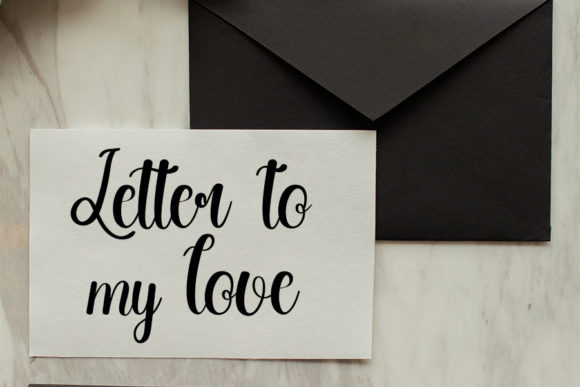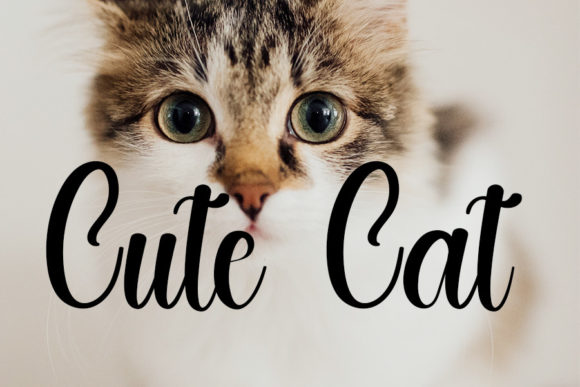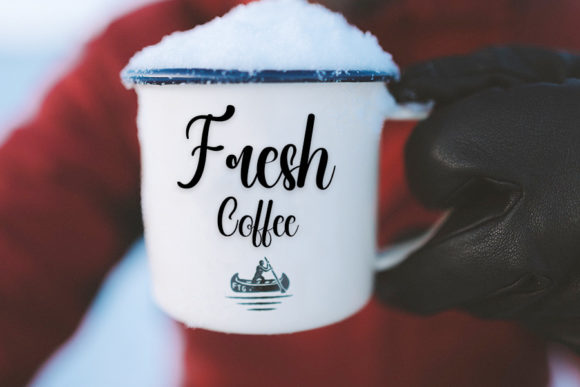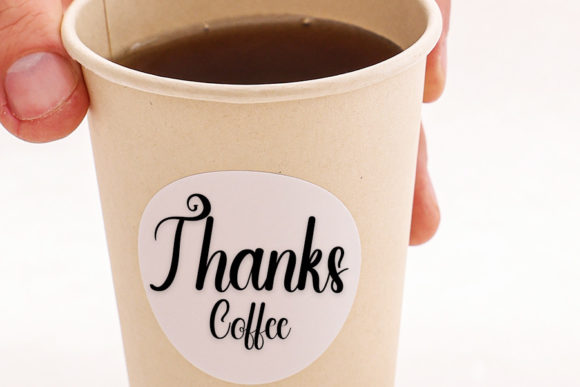
About Soulmate Font
Soulmate is a sweet and delicate handwritten font that radiates a dainty and joyful charm. With its gentle strokes and subtle elegance, this font proves to be ideal for a variety of design applications, especially those demanding a romantic and personalized touch. Whether you’re crafting wedding invitations, greeting cards, or any project that calls for a touch of sweetness, Soulmate is crafted to bring a delightful and intimate feel to your creations.
The delicate nature of Soulmate’s handwritten style adds a personal and endearing quality to your text. Its subtle nuances and joyful character make it the perfect choice for conveying romantic sentiments in your designs.
This font’s versatility allows it to be seamlessly integrated into different projects, lending a warm and inviting atmosphere. Whether used in a wedding invitation to set the tone for a special day or in cards to express sentiments of love, Soulmate enhances the overall visual appeal with its sweet and delicate aesthetic.
In summary, Soulmate is more than just a font; it’s a sweet and delicate handwritten script that brings a touch of joy and intimacy to your designs. Its suitability for wedding invitations, cards, and various other projects makes it a versatile choice for those seeking a romantic and personalized aesthetic. Let Soulmate be the charming and delightful brushstroke that adds a special touch to your creative expressions.